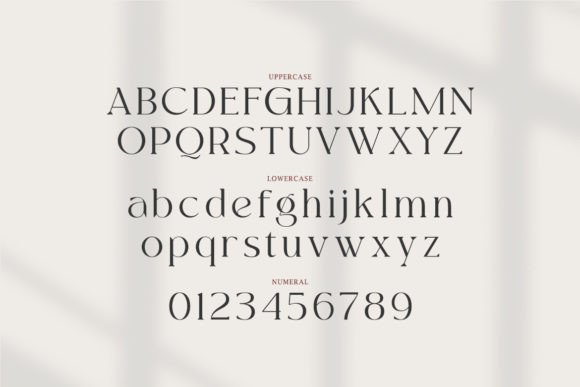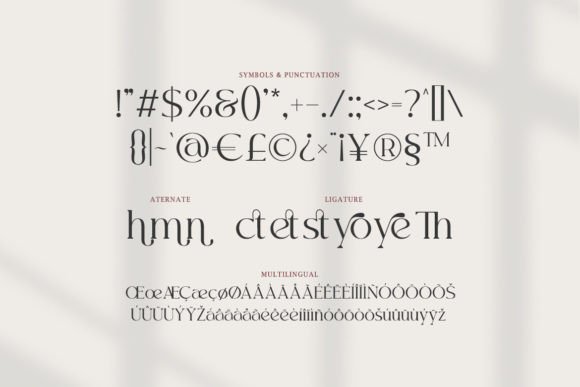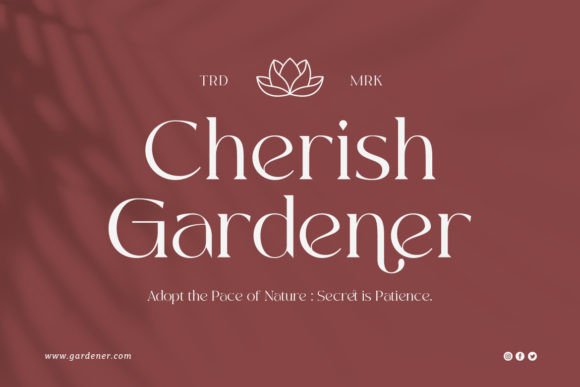
Introduction to Kayonest Font
Have you ever found yourself in the midst of a creative project, searching for that perfect font to bring your vision to life? The frustration of scrolling through countless options, only to settle for something that just doesn’t quite fit, is all too familiar for many designers.
But what if you stumbled upon a font that effortlessly blended tradition with modernity, offering an unparalleled level of versatility and elegance? Welcome to the world of Kayonest Font, a game-changing design resource that’s about to revolutionize the way you approach typography.
With its high-quality aesthetic and transparent background, Kayonest Font is the ultimate tool for designers seeking to elevate their creative projects to new heights. Whether you’re working on a commercial campaign or a personal passion project, this exceptional font is sure to make a lasting impression.
Key Features of Kayonest Font
- Unique and stylish font, ideal for various design applications.
- Comes in a transparent background, allowing for seamless integration with any design.
- Designed with a high resolution, ensuring crisp and clear display in various sizes and resolutions.
- Perfect for use in graphic design, digital art, and other creative projects where a unique and stylish font is required.
Honest Review: Kayonest Font
As a designer, I’m always on the lookout for high-quality design resources to enhance my creative projects. The Kayonest Font is one of the many fonts I’ve had the chance to work with, and I’m excited to share my honest review.
- ✨ High quality: The Kayonest Font is well-designed and has a unique, modern feel to it.
- ✨ Transparent background: The font has a transparent background, making it easy to use in various design scenarios.
- ⚠️ Limited character set: The Kayonest Font only includes a limited character set, which may not be suitable for all design projects.
- ⚠️ Not suitable for body text: The font is best used for headings and titles, as it may be difficult to read in body text.
Overall, the Kayonest Font is a solid addition to any designer’s toolkit. While it may have some limitations, its high quality and unique design make it a great resource for creative projects. If you’re looking for a free font to add some flair to your designs, the Kayonest Font is definitely worth checking out.
Experiment with different font sizes and styles to create visually appealing designs. Use the font’s transparent background to create graphics with a unique look. Combine Kayonest Font with other design elements to create a cohesive and creative project.
The Kayonest Font is suitable for various creative projects, including logos, graphics, presentations, and documents. Its high-quality design and transparent background make it ideal for designers and non-designers alike.
Yes, the Kayonest Font has a transparent background, making it ideal for use on images or backgrounds with a subtle texture or pattern. This feature allows for a seamless integration of the font into your design, adding an extra layer of sophistication and creativity to your project.